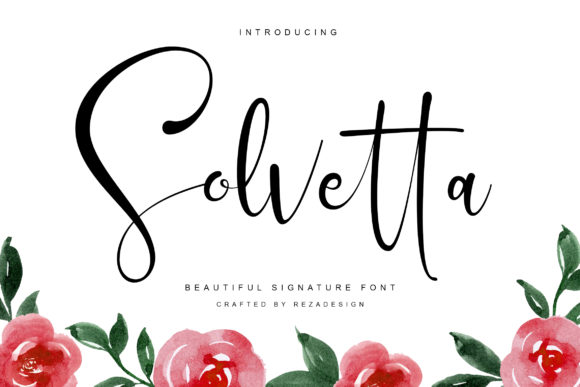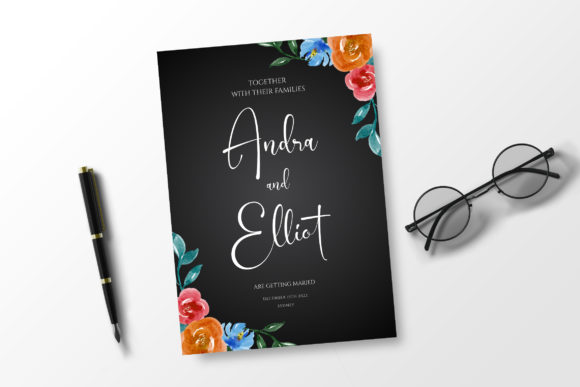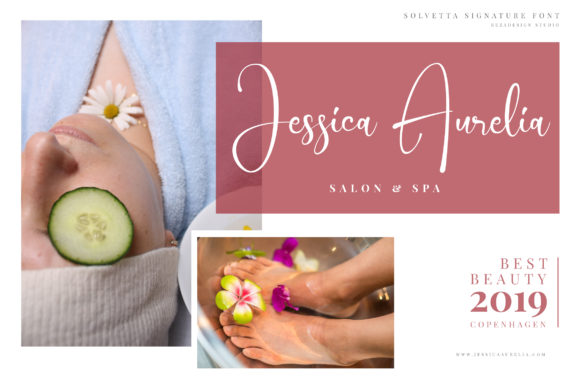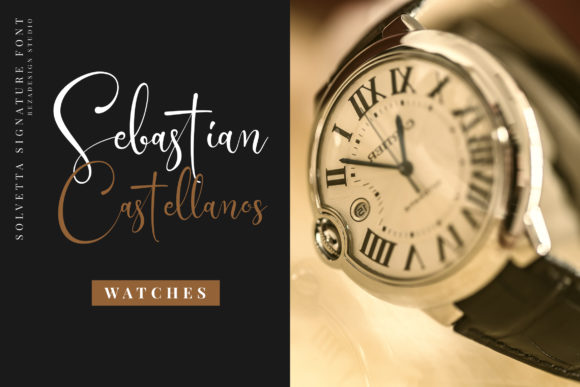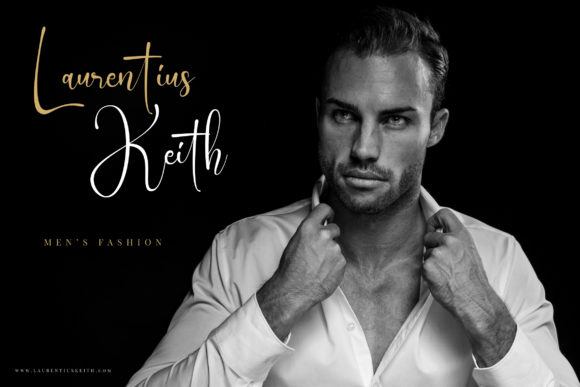
Solvetta Font
About Solvetta Font
Solvetta is a light and charming handwritten font with a unique feel. It will add a bold feel to any design project!